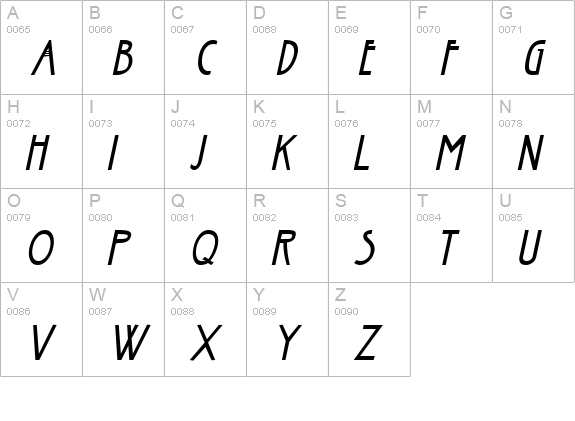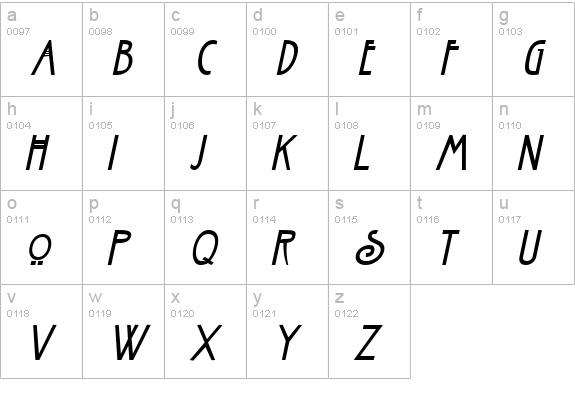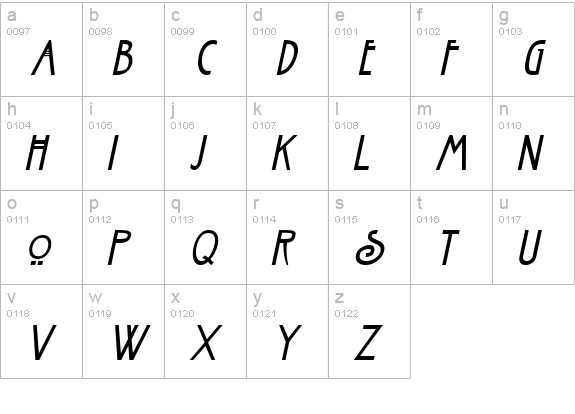
Fanzee-Condensed Italic Font Details
Fanzee-Condensed Italic is a distinctive, condensed-width, italic variant in the Fanzee typeface family \xE2\x80\x94 well suited to design and typography projects.
Discover the sleek and stylish Fanzee-Condensed Italic font, perfect for adding a touch of elegance to your designs. This modern typeface features a condensed design with italicized letterforms, making it ideal for projects that require a sophisticated and contemporary look. The Fanzee-Condensed Italic font is versatile and can be used for a variety of design purposes, from branding and advertising to invitations and social media graphics. Best of all, this beautiful typeface is completely free to download at FontsMarket.com. Whether you're a professional designer looking to enhance your projects or a hobbyist seeking to elevate your creations, Fanzee-Condensed Italic font is the perfect addition to your font collection. Don't miss out on the opportunity to access this high-quality typeface at no cost - download it today and start creating stunning designs with ease.